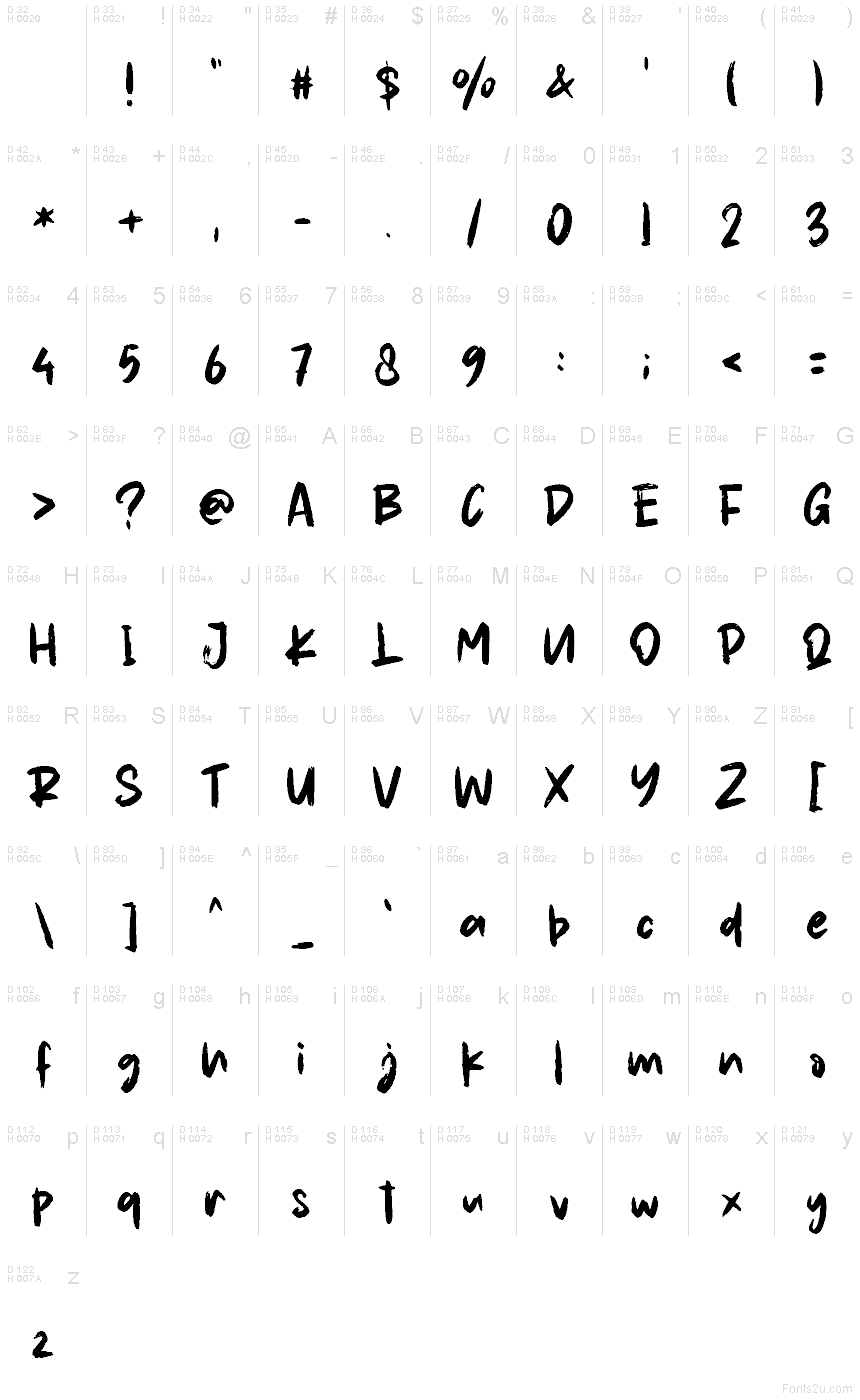
Rocker Story - Personal Use
Rocker Story by Letterafa Studio is a free brush font that solves a classic headache: getting raw, hand-painted energy without losing readability. Its chunky downstrokes, dry-brush grit, and quick, spiky terminals deliver attitude, while the open counters and steady rhythm keep words clear even at mid sizes. The texture feels inky and slightly scuffed—like a poster pulled off a brick wall—so headlines hit hard without turning to noise.
Using Rocker Story, you can charge up gig posters, album art, streetwear logos, skateboard decks, event branding, cafe boards, and YouTube thumbnails. This free font holds spacing well for short phrases and stacked titles. Pair it with a condensed grotesk for body copy, and let the brush do the shouting.